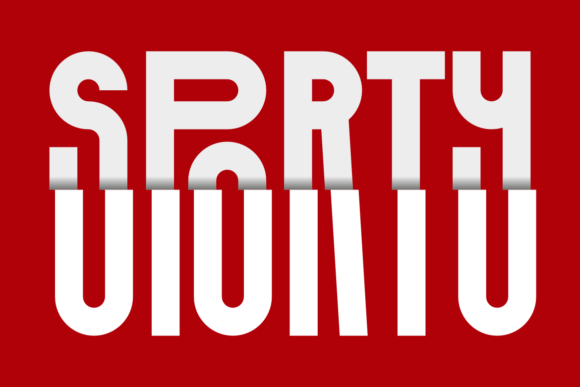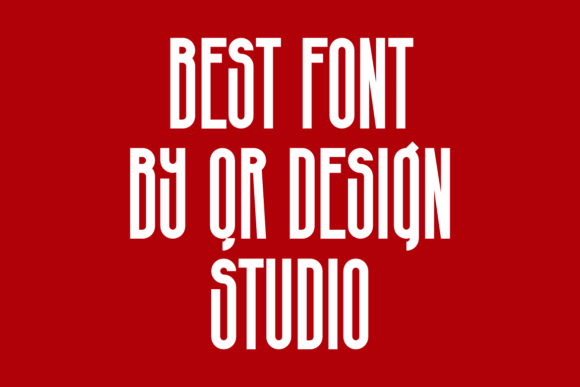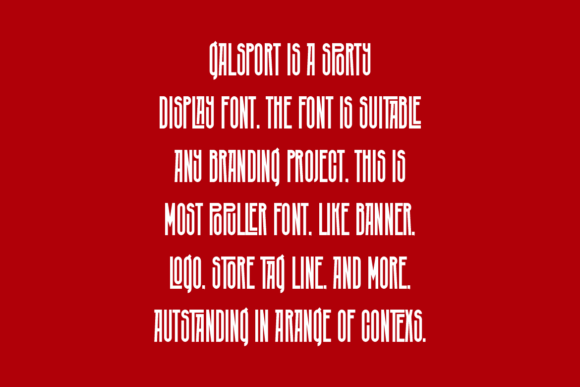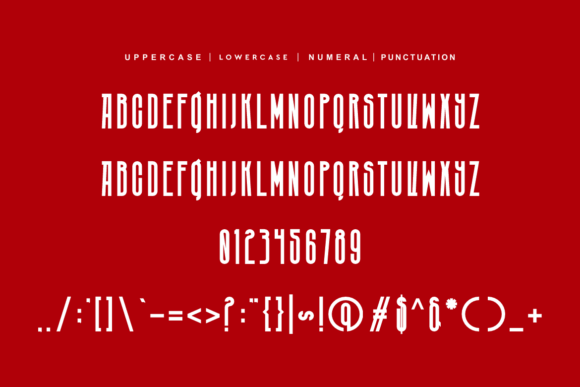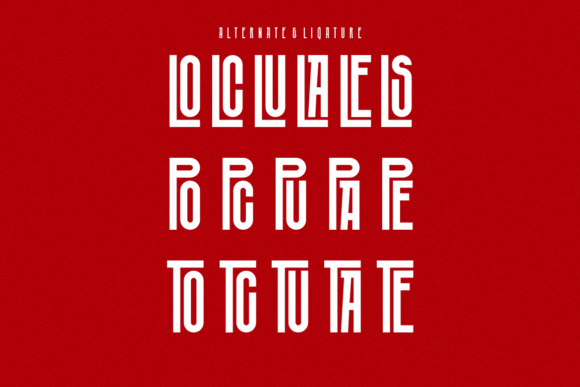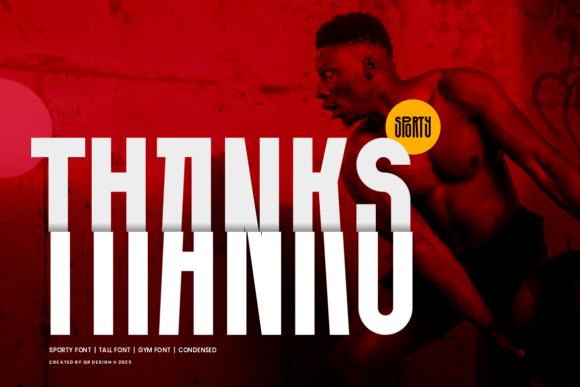
Galsport Font: Unleash the Power of Bold and Dynamic Typography
In the world of sports branding, a strong visual identity is crucial for teams, gyms, and athletic apparel companies to stand out from the competition. A well-designed font can make all the difference in conveying power, precision, and professionalism. Introducing Galsport Font, a bold and dynamic display font specifically crafted for sports branding, gym posters, and athletic apparel.
What Makes Galsport Font Unique?
Galsport Font boasts an ultra-condensed form and strong vertical emphasis, giving it a distinctive and powerful appearance. The modern, geometric lines that make up this typeface exude a sleek, professional feel that’s perfect for logos, team identities, and performance-focused marketing. Whether you’re designing a logo for a sports team, creating a poster for a gym, or developing a brand identity for athletic apparel, Galsport Font is the ideal choice.
Key Features of Galsport Font
- Ultra-condensed form: Galsport Font’s compact design makes it perfect for headlines, titles, and short phrases, allowing you to make a bold statement in a small space.
- Strong vertical emphasis: The font’s vertical emphasis gives it a sense of power and precision, making it ideal for sports branding and athletic apparel.
- Modern, geometric lines: The clean, geometric lines that comprise Galsport Font give it a sleek, professional appearance that’s perfect for logos, team identities, and marketing materials.
- Bold and dynamic: Galsport Font is designed to make a statement, with bold and dynamic letterforms that demand attention.
Perfect for Sports Branding and Athletic Apparel
Galsport Font is specifically designed for sports branding, gym posters, and athletic apparel. Its bold and dynamic appearance makes it perfect for:
- Logos: Create a lasting impression with a bold and memorable logo that showcases your team’s or brand’s identity.
- Team identities: Establish a strong visual identity for your team or brand with Galsport Font’s powerful and professional appearance.
- Gym posters: Grab attention and inspire action with eye-catching posters that showcase your gym’s services and promotions.
- Athletic apparel: Elevate your brand’s visual identity with Galsport Font’s bold and dynamic appearance on t-shirts, jerseys, and other apparel.
Why Choose Galsport Font?
With so many fonts available, why choose Galsport Font? Here are just a few reasons:
- Unique and distinctive: Galsport Font’s bold and dynamic appearance sets it apart from other fonts, ensuring your brand or team stands out from the competition.
- Professional and sleek: The font’s modern, geometric lines give it a professional and sleek appearance that’s perfect for high-performance marketing materials.
- Versatile: Galsport Font can be used for a wide range of applications, from logos and team identities to gym posters and athletic apparel.
In conclusion, Galsport Font is a bold and dynamic display font that’s perfect for sports branding, gym posters, and athletic apparel. With its ultra-condensed form, strong vertical emphasis, and modern, geometric lines, this typeface radiates power and precision. Whether you’re a designer, craftsperson, or marketer, Galsport Font is an excellent choice for anyone looking to create a strong visual identity that demands attention and inspires action.